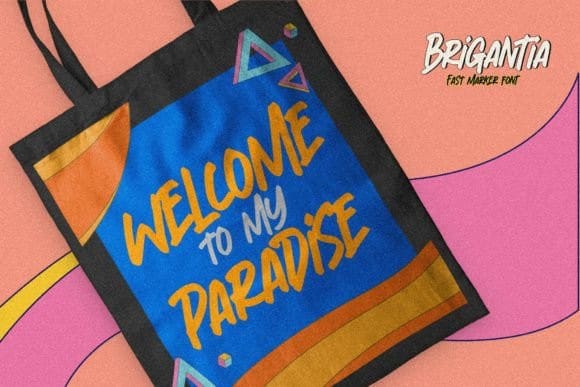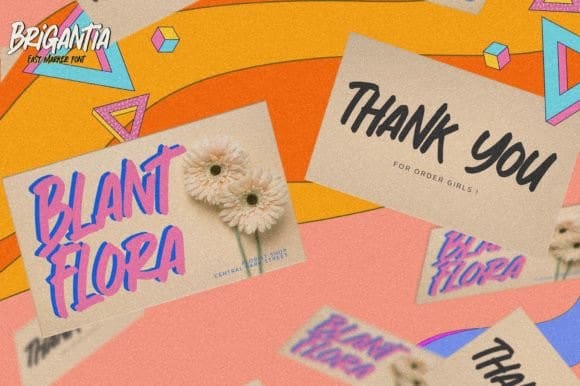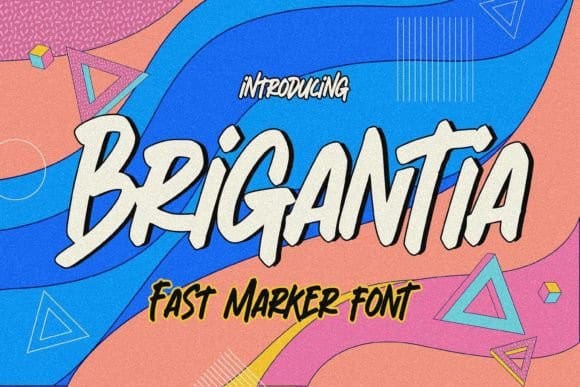
Brigantia Fast Marker Font
Brigantia Fast Marker Font is a fast marker font with a textured style, classy look, and dramatic movement.
Brigantia is great for your next creative projects such as logos, printed quotes, invitations, cards, product packaging, headers, stationery, wedding designs, labels, product packaging, special events, or anything that needs modern typography.